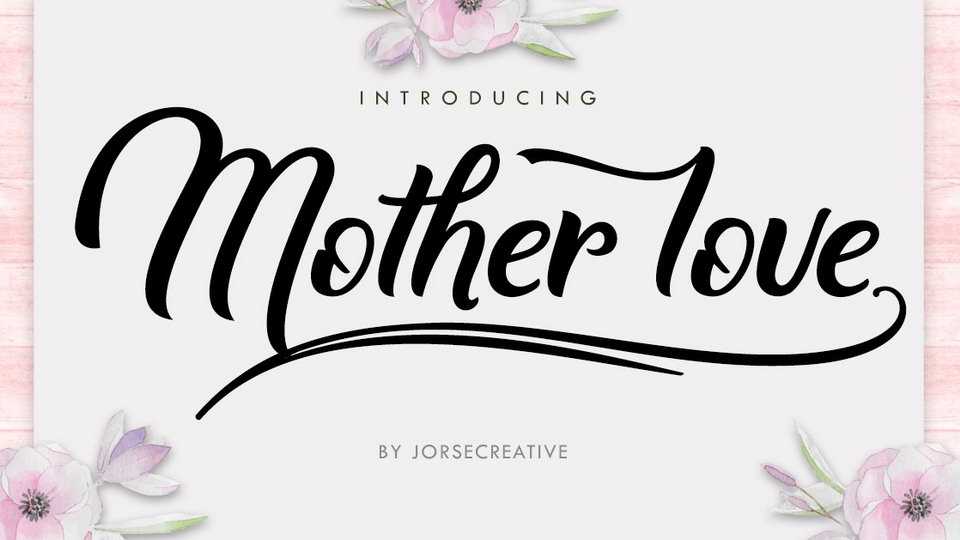
Download Mother Love font, a lovely handwritten script, which is combining the style of classic calligraphy with a modern style. Great for blogs, letters, cards, wedding and other beautiful designs.
Designer: Jorsecreative